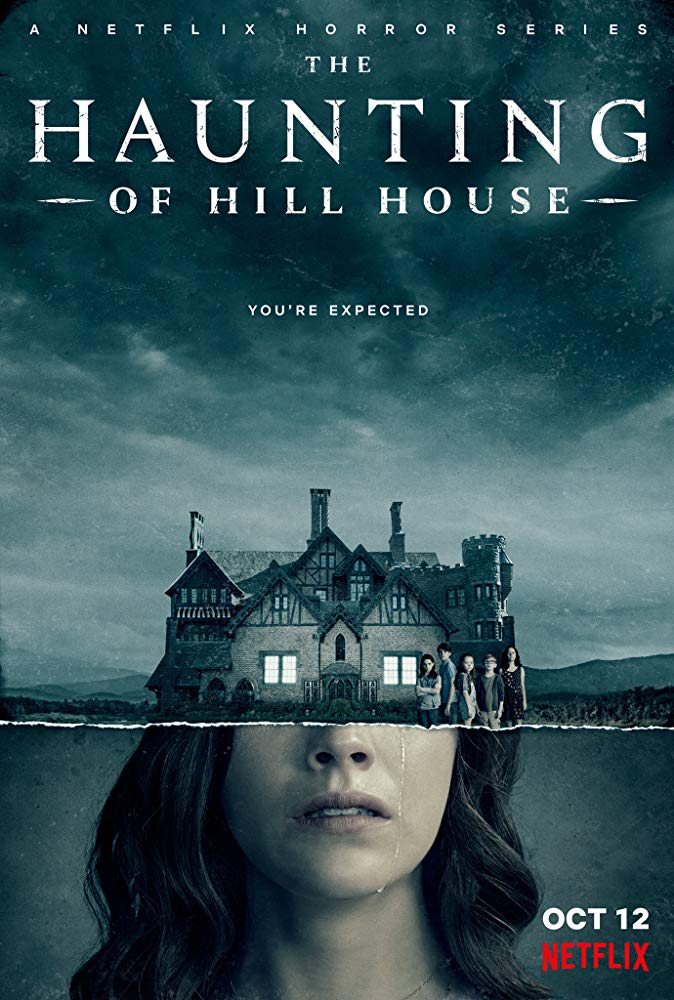
The Haunting of Hill House Font
Fonts in UseThe Haunting of Hill House is a Netflix series based on the novel by Shirley Jackson. It follows a family who grew up in a haunted house and must confront their traumatic past when they reunite as adults.
The "The Haunting of Hill House" show title features Nocturne Serif, a serif font designed by Mateusz Machalski, inspired by the lettering on stone tablets honoring victims of World War II and Warsaw architecture. The font can be downloaded 100% free from the Fonts Used Section.